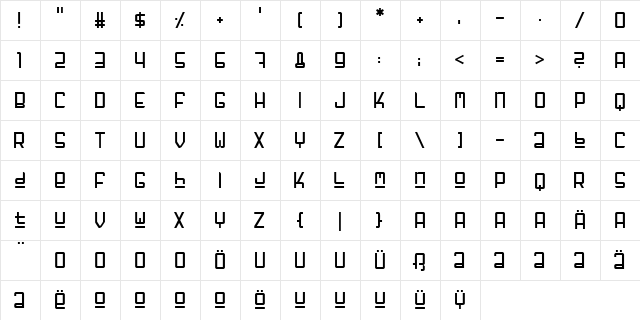
GF Fuffiger Normal
Design Context for GF Fuffiger Typeface
GF Fuffiger takes a measured approach to typography — its balanced proportions and neutral character make it a reliable workhorse for both digital and print work.